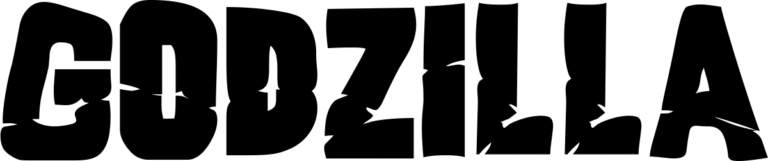
Inlanders Font
The perfect sans serif block font style is found in the Inlanders font. It will make your work stand out from the crowd with its lovely classic style. For logos, brand names, titles, and other forms of content, Inlanders…
The perfect sans serif block font style is found in the Inlanders font. It will make your work stand out from the crowd with its lovely classic style. For logos, brand names, titles, and other forms of content, Inlanders is ideal. This title block font does not, however, have digits or lowercase letters.